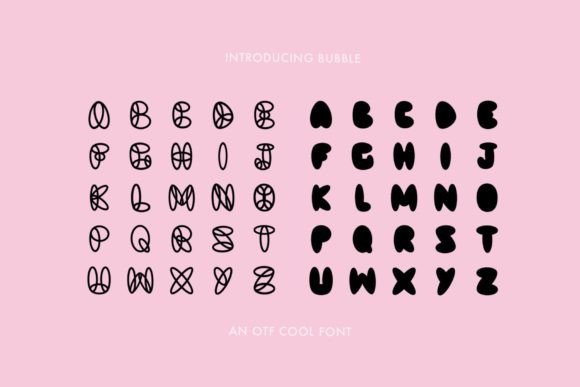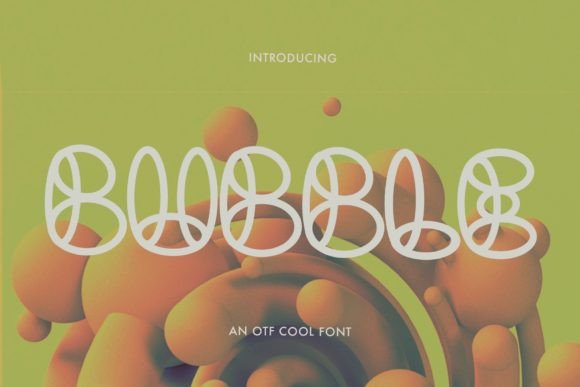
The Joy of Bubble Font: A Designer’s New Best Friend
I still remember the time I was working on a children’s party invitation design, and I just couldn’t find the right font to match the playful theme. The client wanted something fun, cheerful, and engaging, but everything I tried seemed either too boring or too over-the-top. That’s when I stumbled upon Bubble Font, and it was love at first sight! ✨
Bubble Font is a brilliant, fun, and aesthetically pleasing display font that’s perfect for use on cheerful topics. Its bubbly personality makes it very suitable for children’s themed designs, especially when combined with bright colors.
- ✨ Playful and fun: Bubble Font is the epitome of playfulness, making it perfect for designs that require a lighthearted touch.
- ✅ Easy to read: Despite its bubbly nature, the font remains clear and easy to read, even in larger sizes.
- 🌈 Colorful possibilities: The font’s design lends itself well to bright, bold colors, making it perfect for designs that require a pop of color.
While Bubble Font is an excellent choice for many designs, there are a few things to keep in mind: 🤔
- ⚠️ Legibility at small sizes: While the font is generally easy to read, it can become a bit tricky to decipher at very small sizes.
- ⚠️ Limited versatility: Bubble Font is a display font, so it’s best used for headlines or titles rather than body text.
A Practical Guide to Using Bubble Font
The Story Behind Bubble Font
Bubble Font was designed with the intention of creating a fun, playful font that’s perfect for designs that require a lighthearted touch. The designer wanted to create a font that’s reminiscent of childhood memories, with a bubbly personality that’s hard to resist.
Q: What type of designs is Bubble Font best suited for?
A: Bubble Font is perfect for designs that require a playful, cheerful touch, such as children’s party invitations, kids’ educational materials, and fun social media graphics.